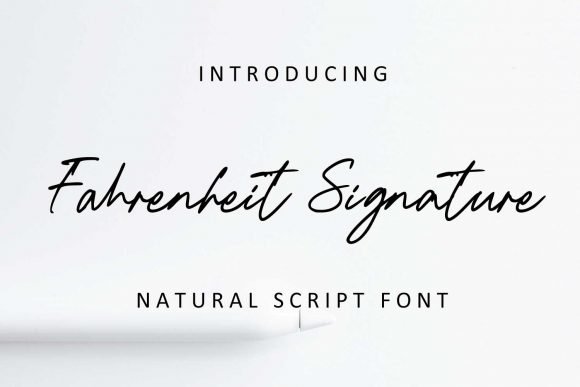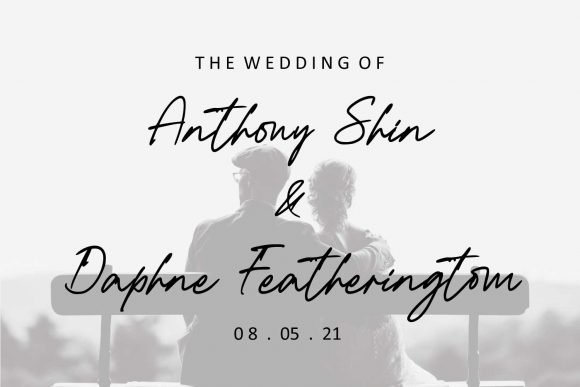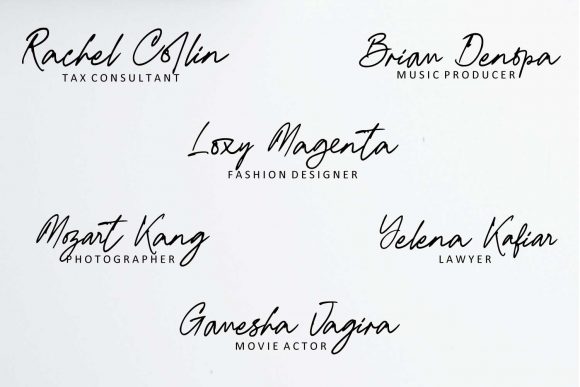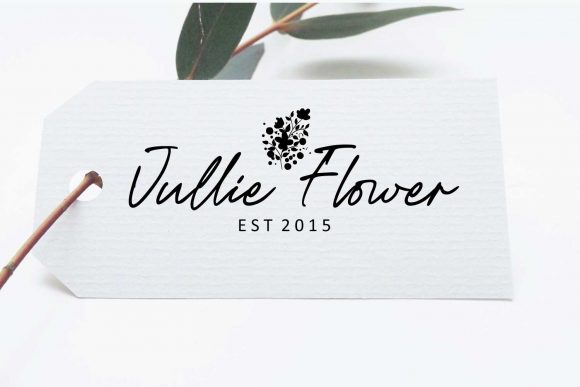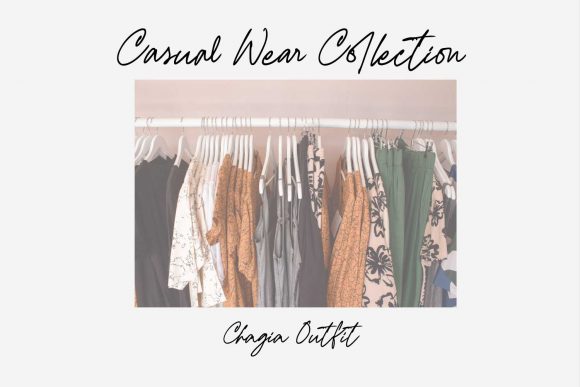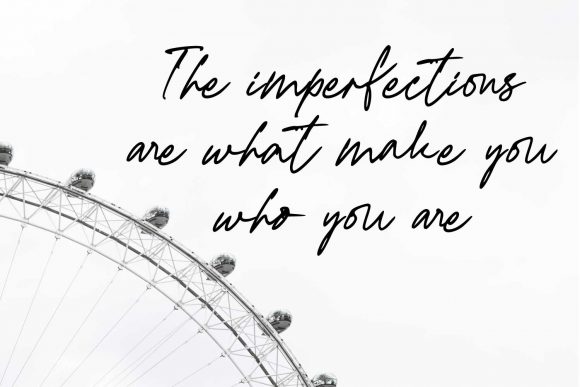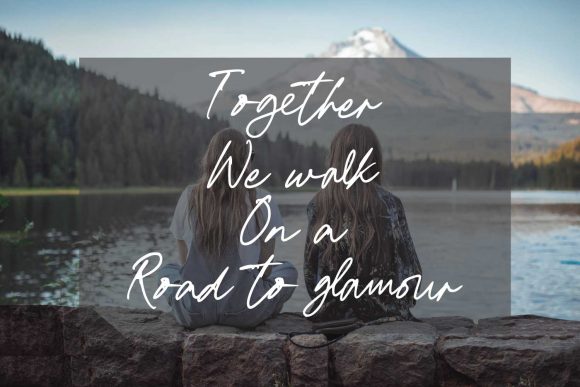
Enter the Fahrenheit Signature Font – a stylish and delicate font that will elevate your designs to new heights. With its clean, thin, and smooth vibe, this font is perfect for adding a touch of sophistication to any project. Whether you’re designing a logo, a brochure, or a website, the Fahrenheit Signature Font is sure to make a statement. As a valuable addition to any designer’s toolkit, this font is a must-have for anyone looking to take their designs to the next level.
- Unique Characteristics: The font features a unique blend of modern and vintage elements, with distinctive letterforms and flourishes that add a touch of sophistication and elegance.
Fahrenheit Signature Font Review
I recently had the chance to work with the Fahrenheit Signature Font, and I must say it’s been a mixed bag for me. Here are my honest thoughts:
- ✨ Elegant Script: The Fahrenheit Signature Font has a beautiful, flowing script that adds a touch of sophistication to any design. It’s perfect for creating elegant invitation designs, wedding cards, or even luxury branding materials.
- ✨ Versatile: This font is incredibly versatile and can be used in a wide range of design applications, from digital to print. It’s also highly legible, making it a great choice for body text or headings.
- ⚠️ Limited Character Set: One major limitation of the Fahrenheit Signature Font is its limited character set. It only includes uppercase and lowercase letters, as well as a few punctuation marks. This can make it difficult to use in designs that require a wide range of characters.
- ⚠️ Not Ideal for Display Text: While the font is beautiful, it’s not ideal for display text or headlines. The script style can make it difficult to read in large sizes or when used in bold weights.
Overall, I’d say the Fahrenheit Signature Font is a solid choice for designers looking to add a touch of elegance to their designs. While it has some limitations, its versatility and beautiful script style make it a worthwhile addition to any font library.
To get the most out of Fahrenheit Signature Font, use it for:
1. Branding and logos.
2. Titles and headings.
3. Creative and artistic projects.
Fahrenheit Signature Font is commonly used for:
1. Fashion and beauty branding.
2. Luxury and high-end product design.
3. Creative and artistic projects that require a unique and elegant font style.
Alternatives to Fahrenheit Signature Font
Playfair Display is a luxurious, high-end serif font that exudes elegance and sophistication. It’s perfect for use in high-end branding, luxury goods, and premium products. Playfair Display is similar to Fahrenheit Signature Font in its luxurious feel, but has a more refined and classic look.
Great Vibes is a modern script font that conveys a sense of creativity and playfulness. It’s ideal for use in digital products, marketing materials, and social media campaigns. Great Vibes is a more casual alternative to Fahrenheit Signature Font, with a bolder and more expressive feel.
Pacifico is a beautiful, elegant script font that’s perfect for use in branding, packaging, and print materials. It’s inspired by the classic fonts of the past, but with a modern twist. Pacifico is similar to Fahrenheit Signature Font in its elegant feel, but has a more relaxed and casual look.